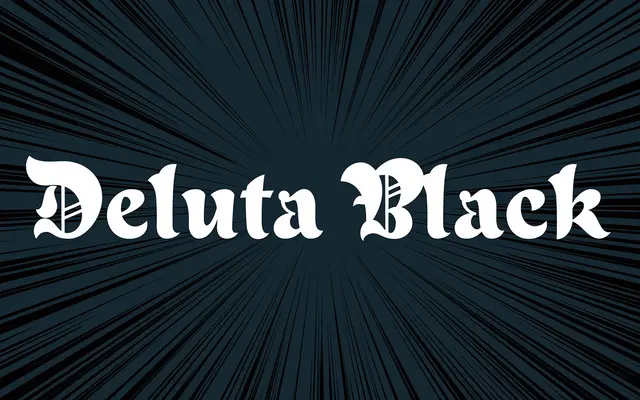
Deluta Black
A playful, decorative blackletter from Dharma Type that puts a light-hearted spin on traditional gothic lettering.
Deluta Black takes the conventions of blackletter type and injects a quirky, informal character suited to display and branding work. The single Black weight keeps it squarely in display territory, where the charm of the letterforms can be given room to breathe. A niche choice for projects that want gothic flavour without the usual severity.
Explicitly a blackletter font; described as playful and quirky, suggesting a decorative or display-oriented take on traditional blackletter forms.